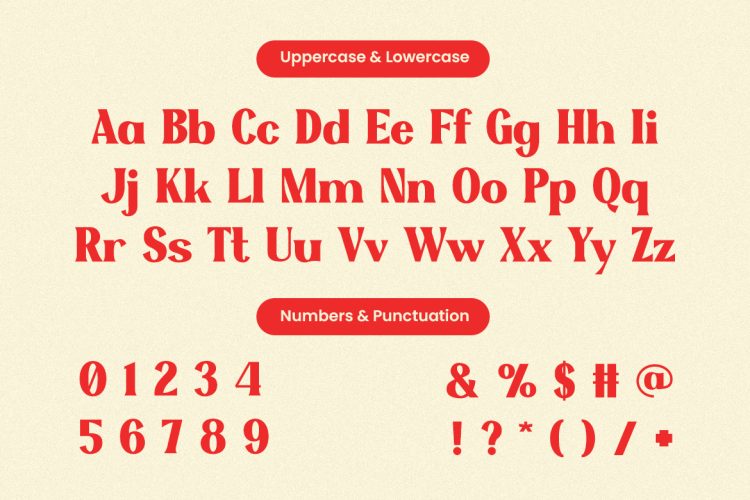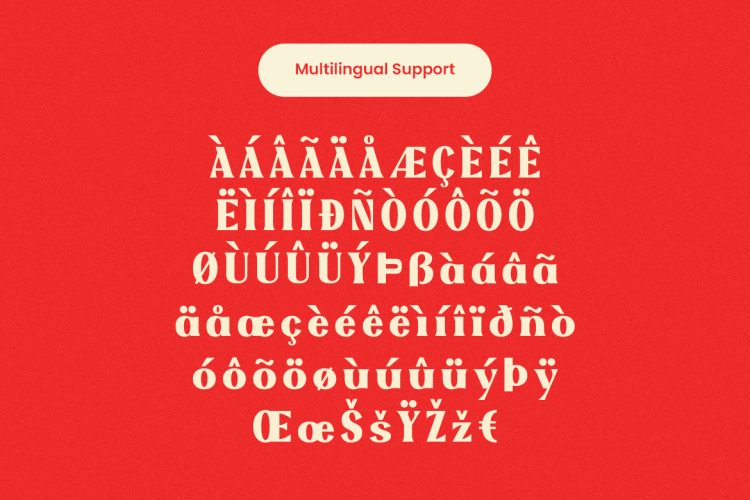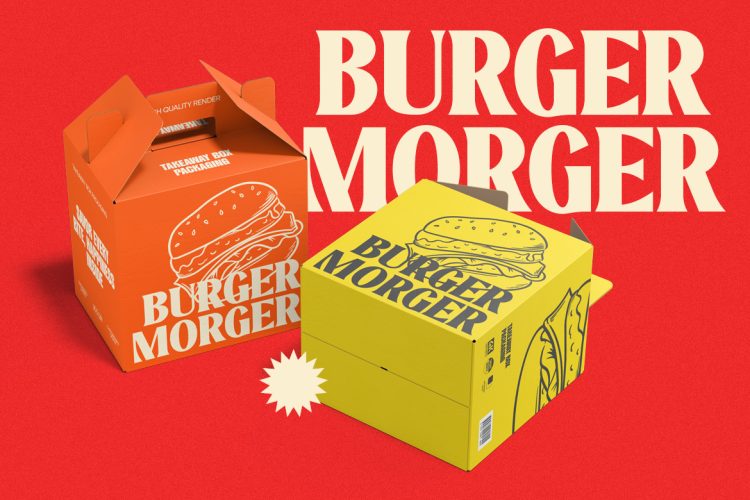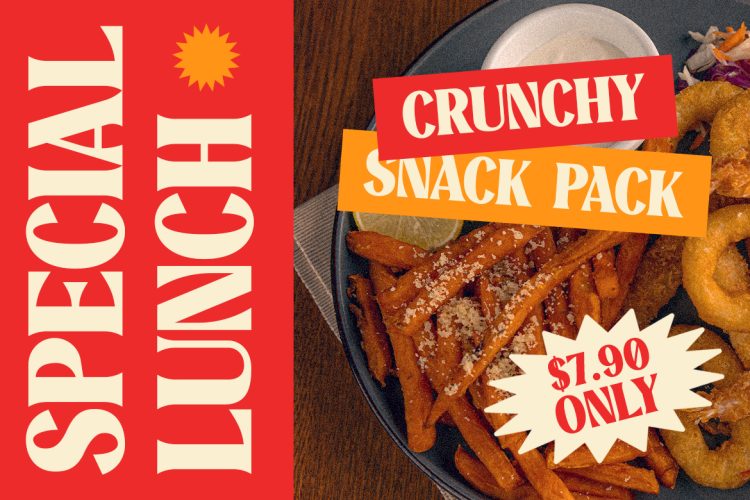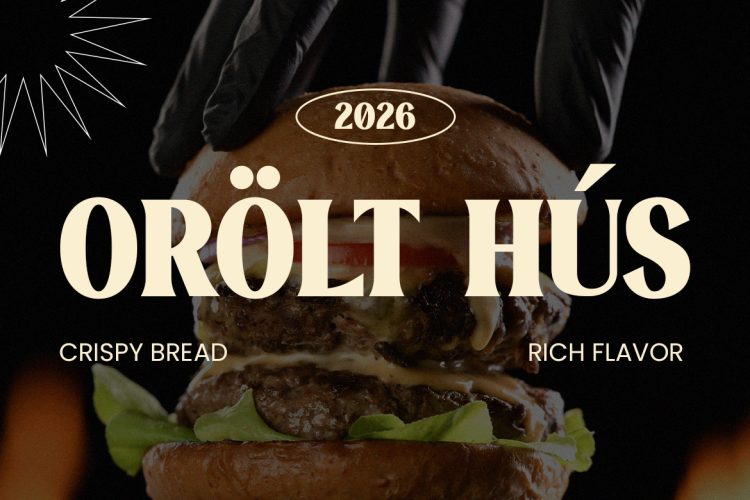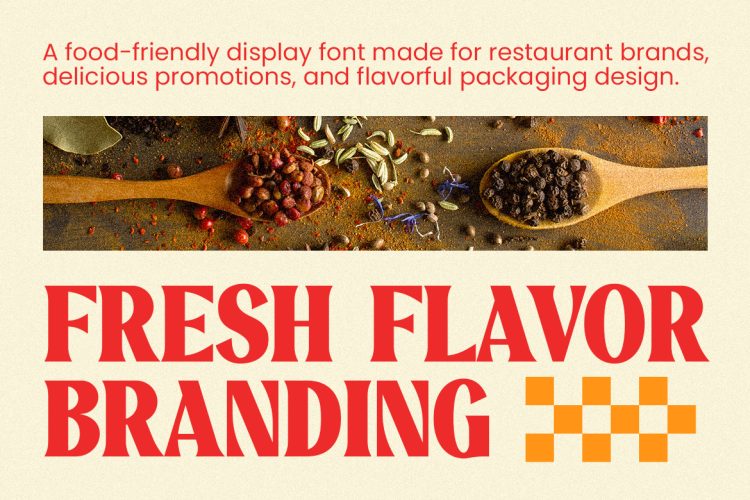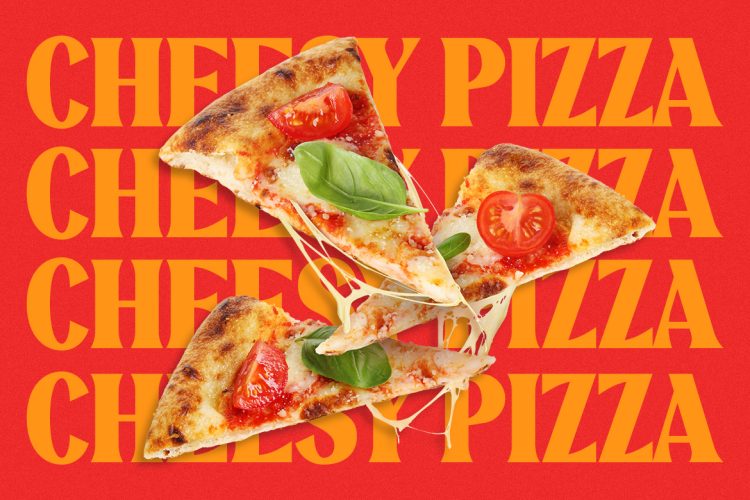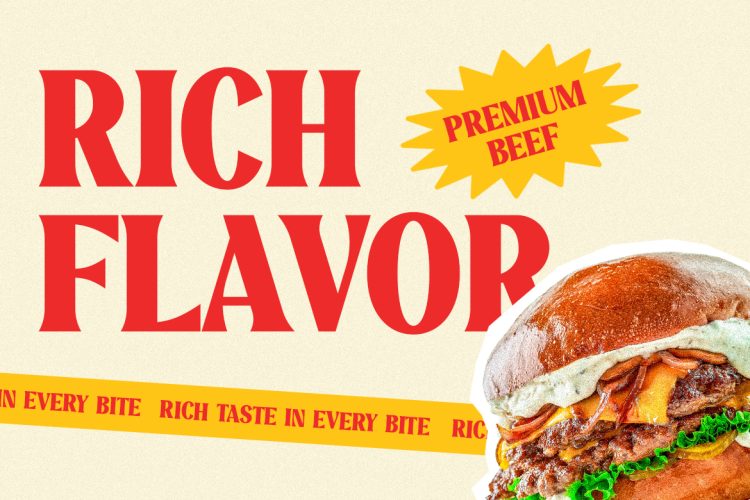
Instagram Font Poggio โ A Deliciously Bold Display Style
Instagram Font Poggio brings a bold personality to food-inspired designs. Its strong shapes and retro display style attract attention instantly. Moreover, the thick curves create a powerful visual impact in headlines. At the same time, the playful letterforms add warmth and charm. Because of this balance, the font feels both nostalgic and modern. In addition, Poggio stays clear and readable in large promotional layouts. Therefore, it works perfectly for eye-catching titles and branding visuals. Even better, the font supports 67 languages, allowing brands to reach wider audiences.
Perfect For Designers, Creators, and Food Brands
Instagram Font Poggio is designed for creatives who want typography that stands out. For example, it fits restaurant branding, burger packaging, and pizza promotions. Likewise, it works well for cafรฉ menus, posters, and social media graphics. Furthermore, designers can use it for bold logos and marketing visuals. Because of its friendly style, it suits food brands and content creators. As a result, projects feel more energetic, tasty, and memorable.
Turn Your Design Into a Flavorful Brand
Instagram Font Poggio is more than a display font. Instead, it is a branding tool that adds flavor and character. Therefore, it helps your visuals capture attention quickly. So, if you want bold typography with personality, Poggio is the right choice. Start using it today and create designs people will remember.